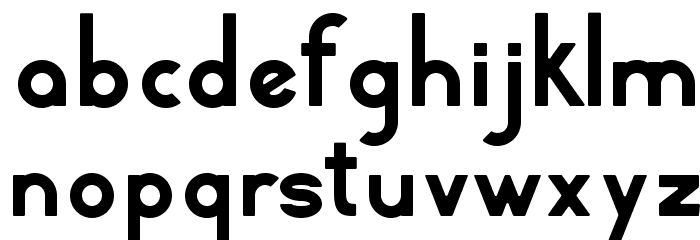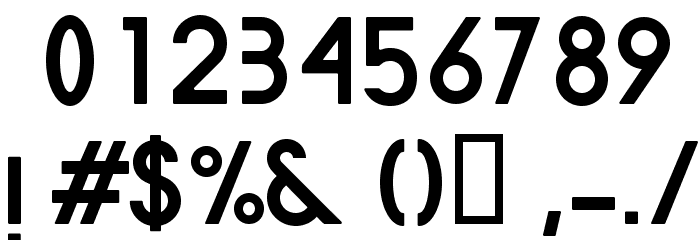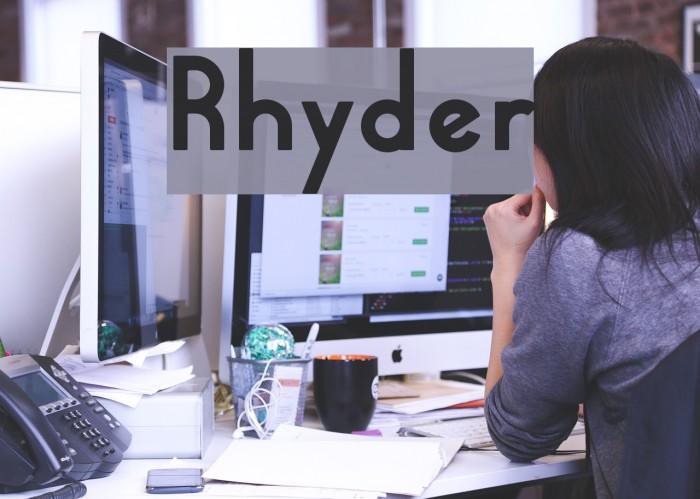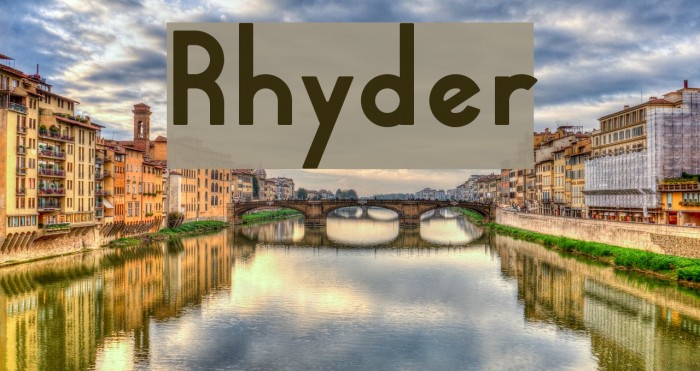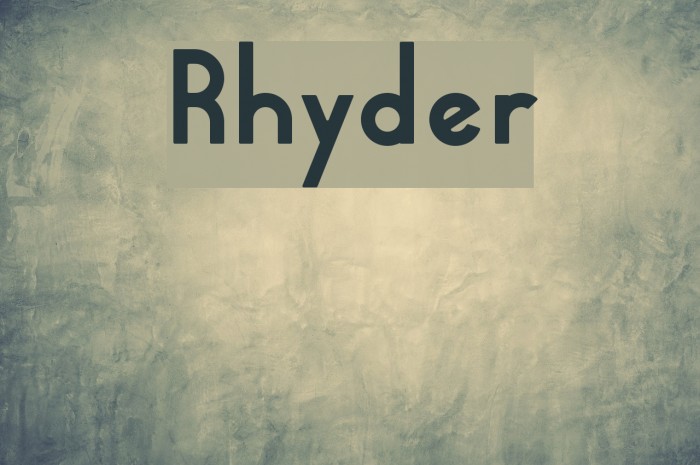
Rhyder Font
This font features a bold and geometric design with a modern aesthetic. The uppercase letters are characterized by their uniform stroke width and angular forms, creating a strong and impactful appearance. The lowercase letters maintain a similar geometric style, with rounded edges that add a touch of softness to the overall look. The numerals are consistent with the letterforms, offering a cohesive and balanced appearance. Special characters are designed with the same attention to detail, ensuring versatility and readability across various applications. The font's clean lines and contemporary style make it suitable for a wide range of design projects.
A bold, geometric font with a modern and impactful design.
- Proposed Projects: Ideal for branding, headlines, posters, and modern web design.